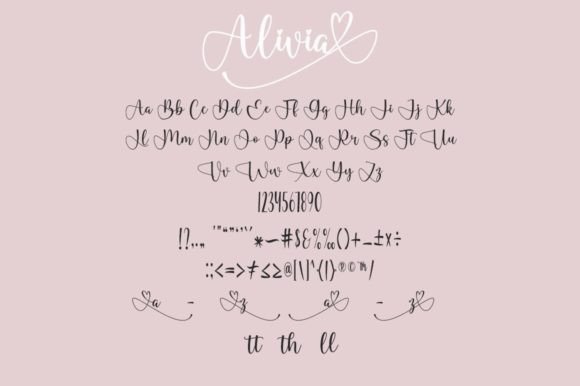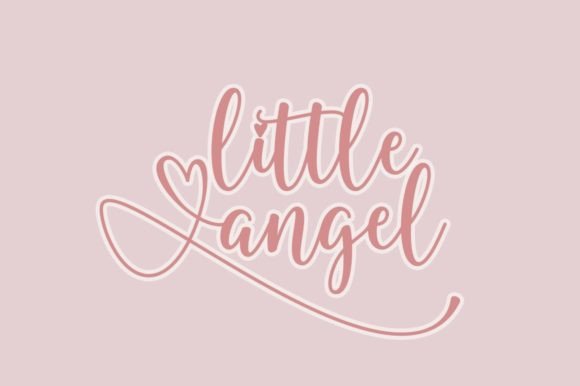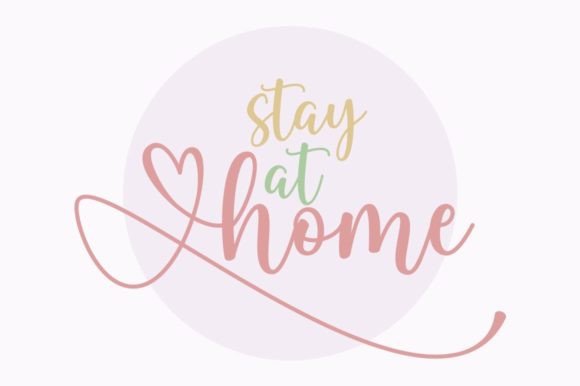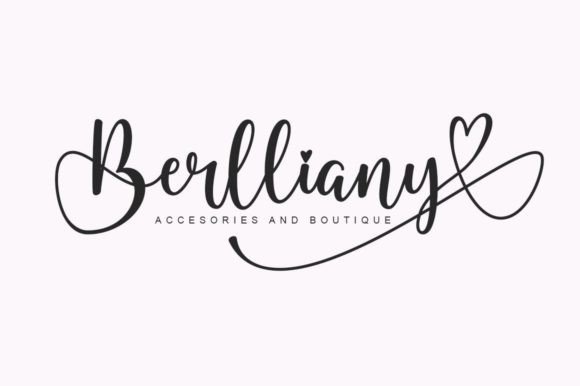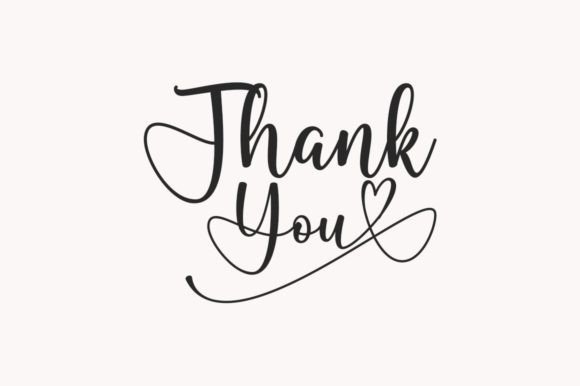
About Alivia Font
Alivia is more than just a font; it’s a subtle and elegant script that adds a touch of sophistication to your creative endeavors. With its thin lettering and delicate strokes, Alivia exudes a refined charm that can effortlessly elevate your favorite creations. Whether you’re working on invitations, branding, or any design project, introducing Alivia promises to bring an element of grace and beauty.
The beauty of Alivia lies not only in its visual appeal but also in its functional flexibility. The font is PUA encoded, a feature that grants you easy access to a plethora of amazing glyphs and ligatures. This means you have the freedom to explore and use a variety of characters, enhancing the uniqueness of your designs. Alivia’s elegant script offers a seamless blend of style and accessibility, allowing you to create with both ease and creativity.
As you integrate Alivia into your projects, you’ll witness the subtle yet impactful transformation it brings. Its delicate script is designed to make a statement without overpowering the overall design, making it a versatile choice for a range of applications. Whether you’re looking to craft invitations that exude sophistication or establish a brand identity with a touch of grace, Alivia delivers.
This font isn’t just a visual asset; it’s a design tool that allows you to express your creativity effortlessly. Its thin lettering adds an airy and light quality, making it suitable for various design purposes. Alivia shines not only in standalone applications but also complements other design elements seamlessly.
In summary, Alivia is an invitation to explore the realm of delicate and thin lettering, where every stroke carries a sense of elegance. Add it confidently to your design repertoire, and let the font’s graceful aesthetic captivate and amaze. With Alivia, your creative outcomes are not just anticipated; they’re destined to be extraordinary.